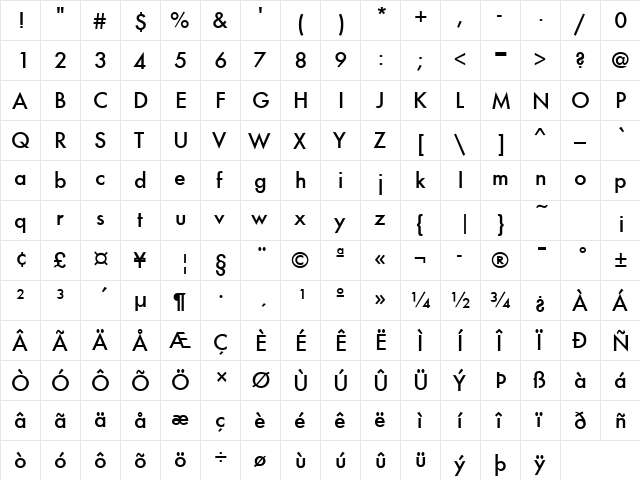
Fuschia Medium Regular
Design Context for Fuschia Medium Typeface
Fuschia Medium offers clean, dependable letterforms without strong stylistic allegiance, making it a practical choice for designers who need flexibility.